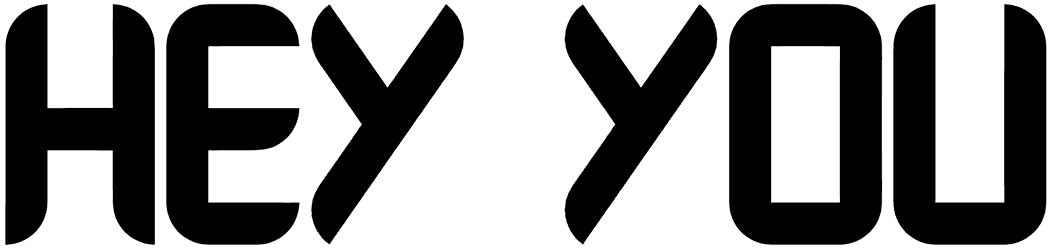
Hey You Font
Clearly expressing your message will help you to reach out to a lot of visitors, and this modern font can do it. The bold characters can make a different style for your words, but keep them humble.
Lowercase letters and punctuation marks are not availabl,e but as an all-caps font, the Hey You font will be a unique pickup for many topics, like a digital advertisement for a new device.